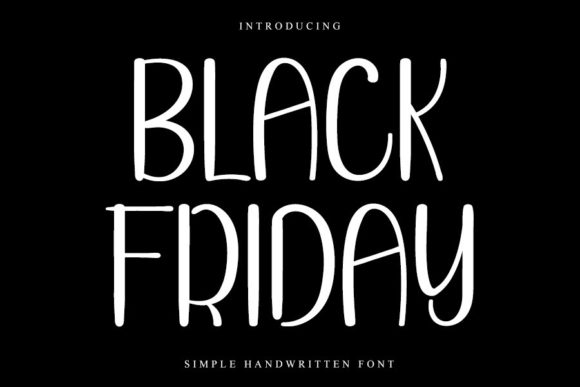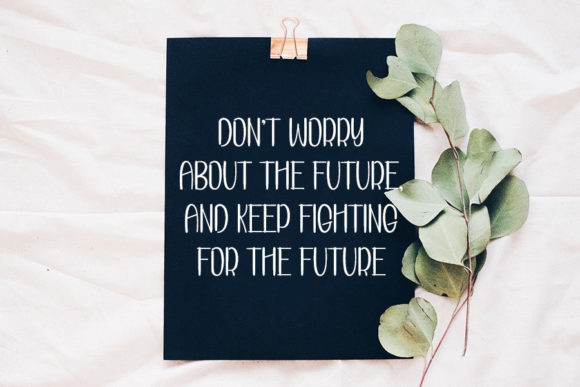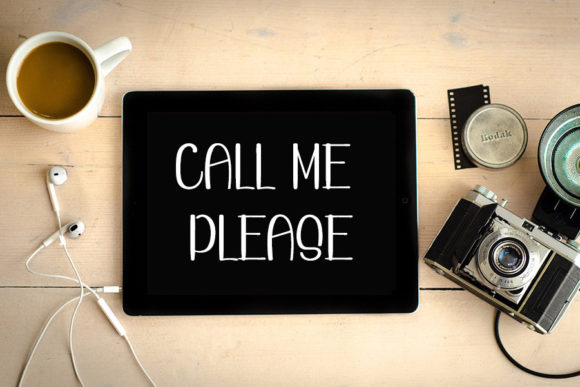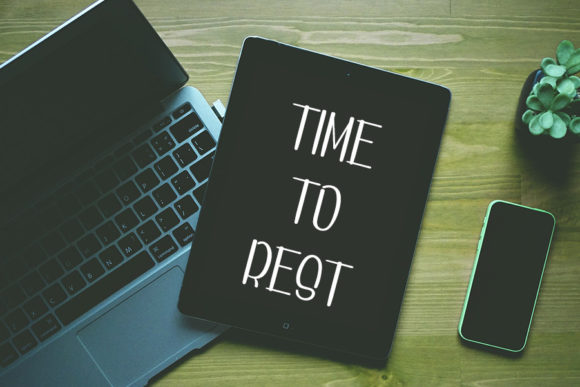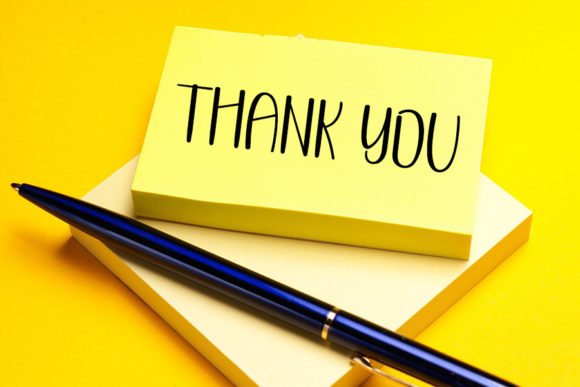
About Black Friday Font
Black Friday is a playful and smart-looking handwritten font. It is the ideal choice for creating eye-catching logos, branding, and quotes. Every letter has a unique and friendly touch, which will make your design come alive!